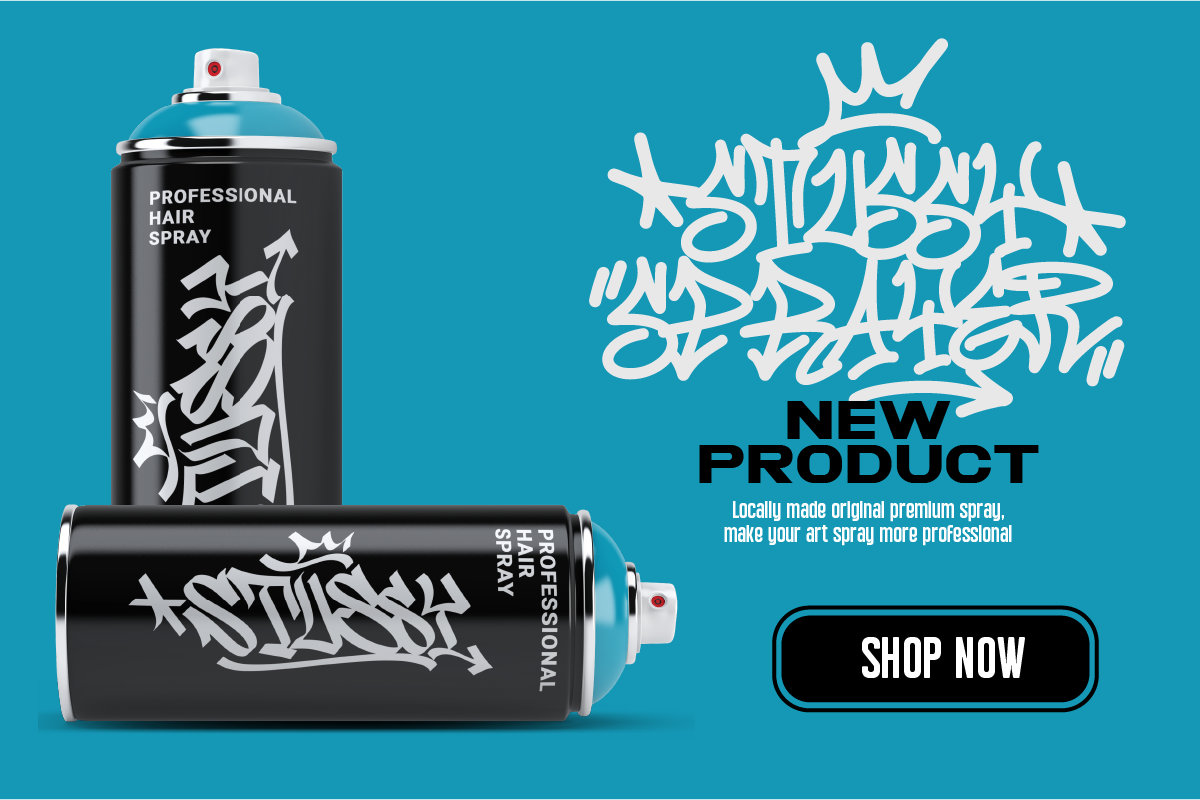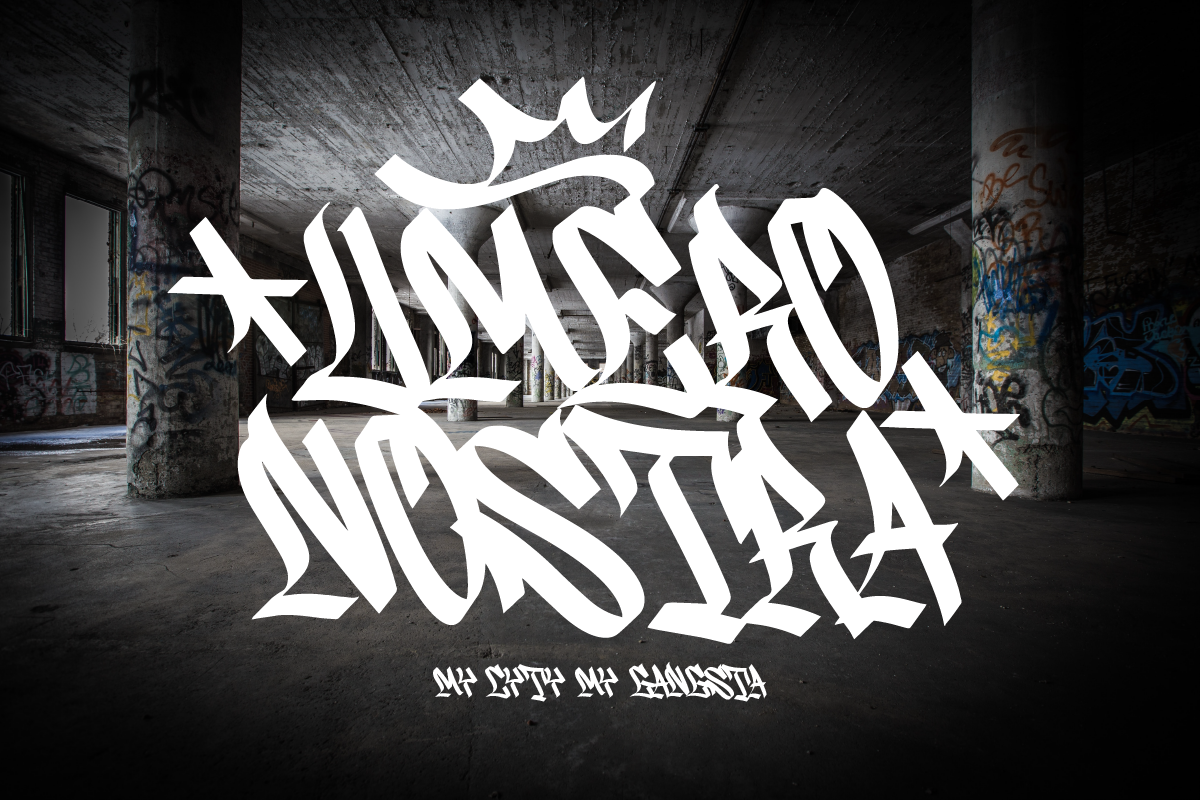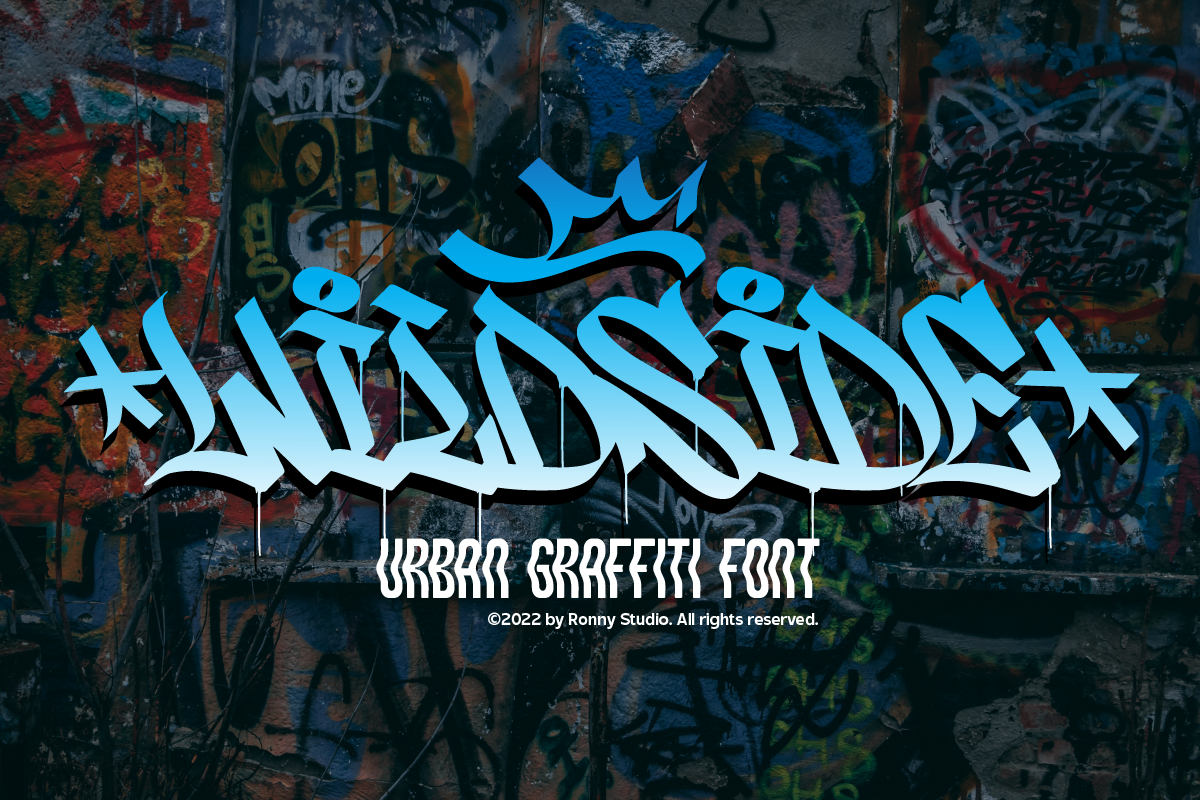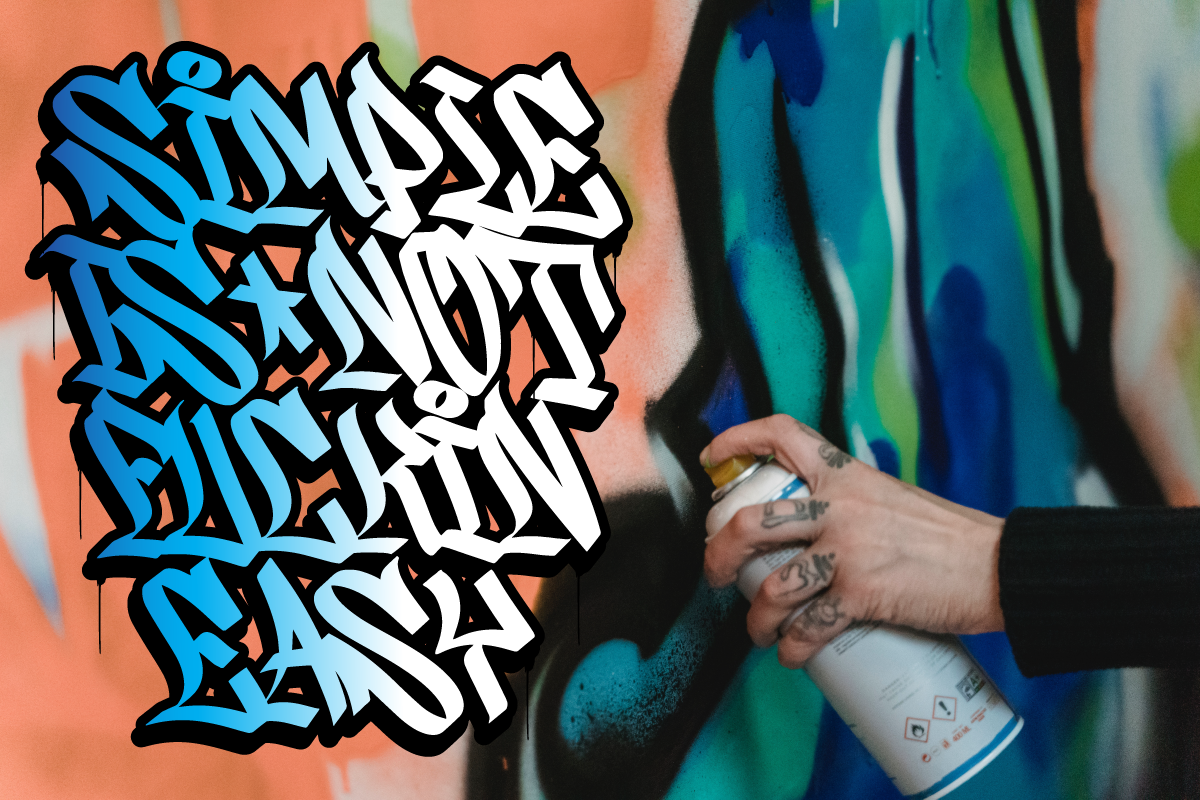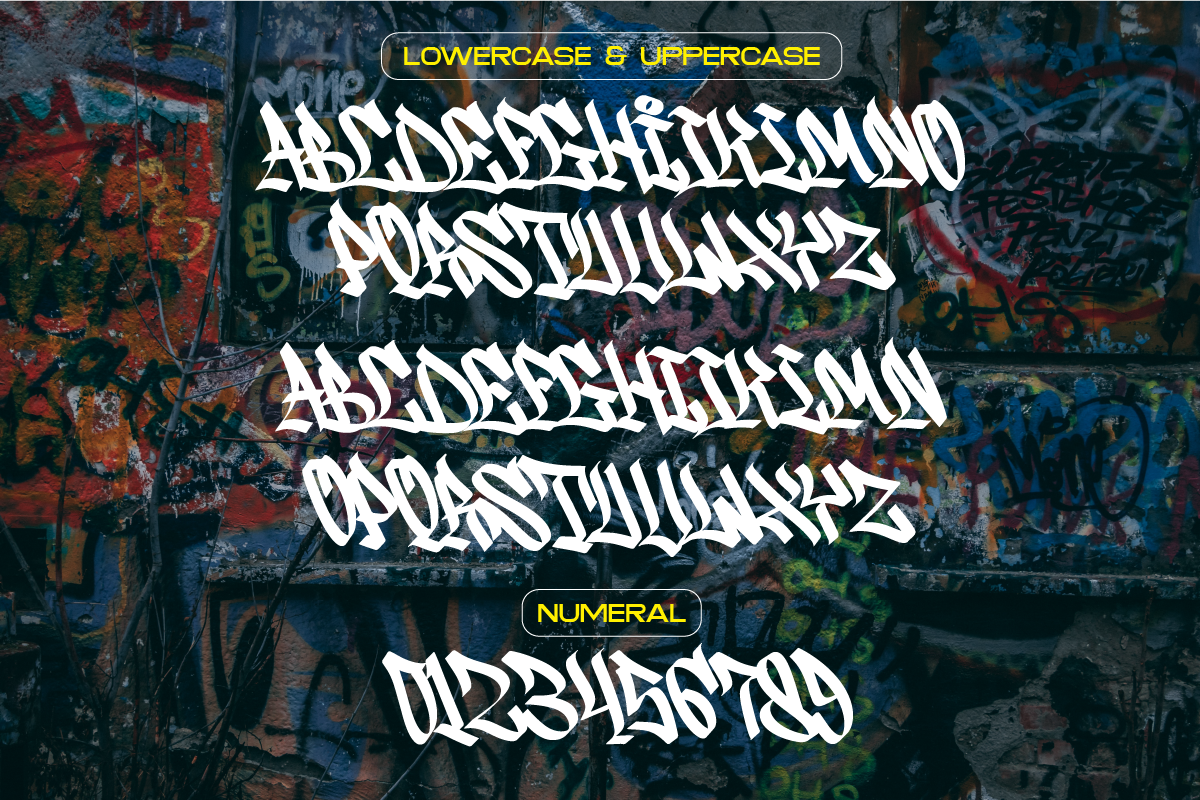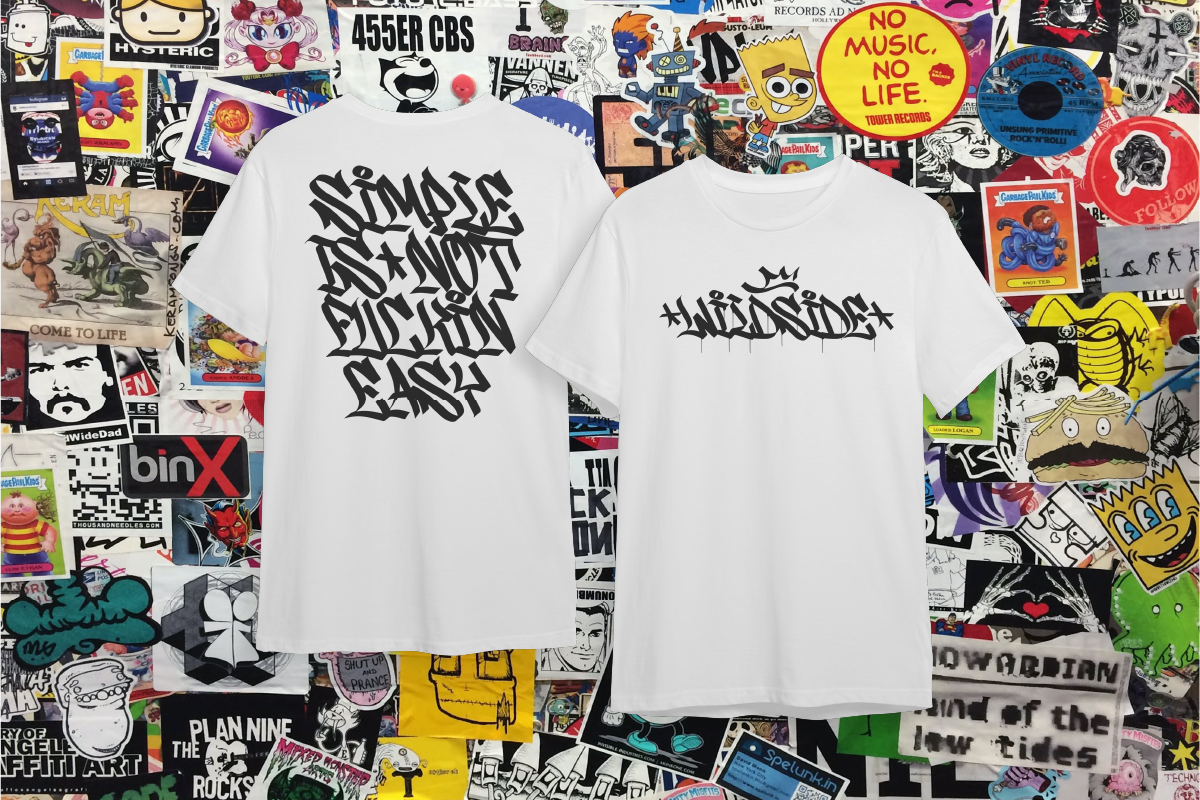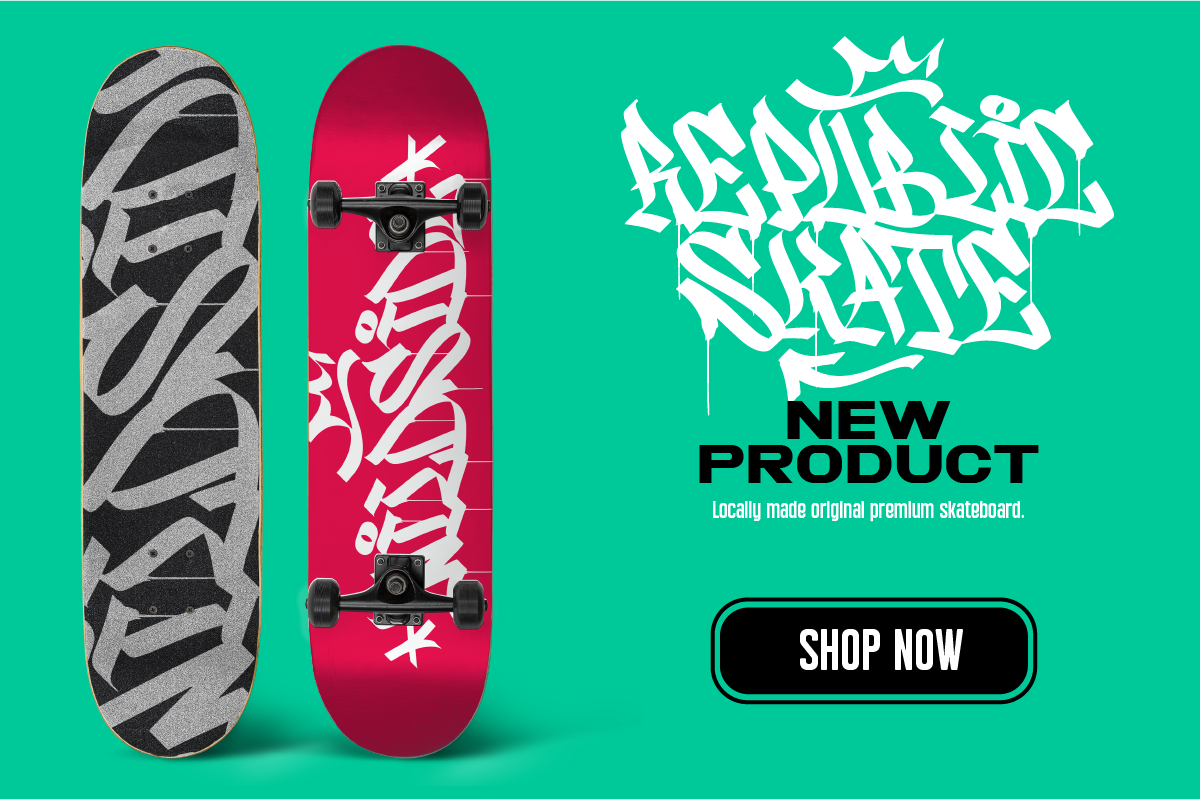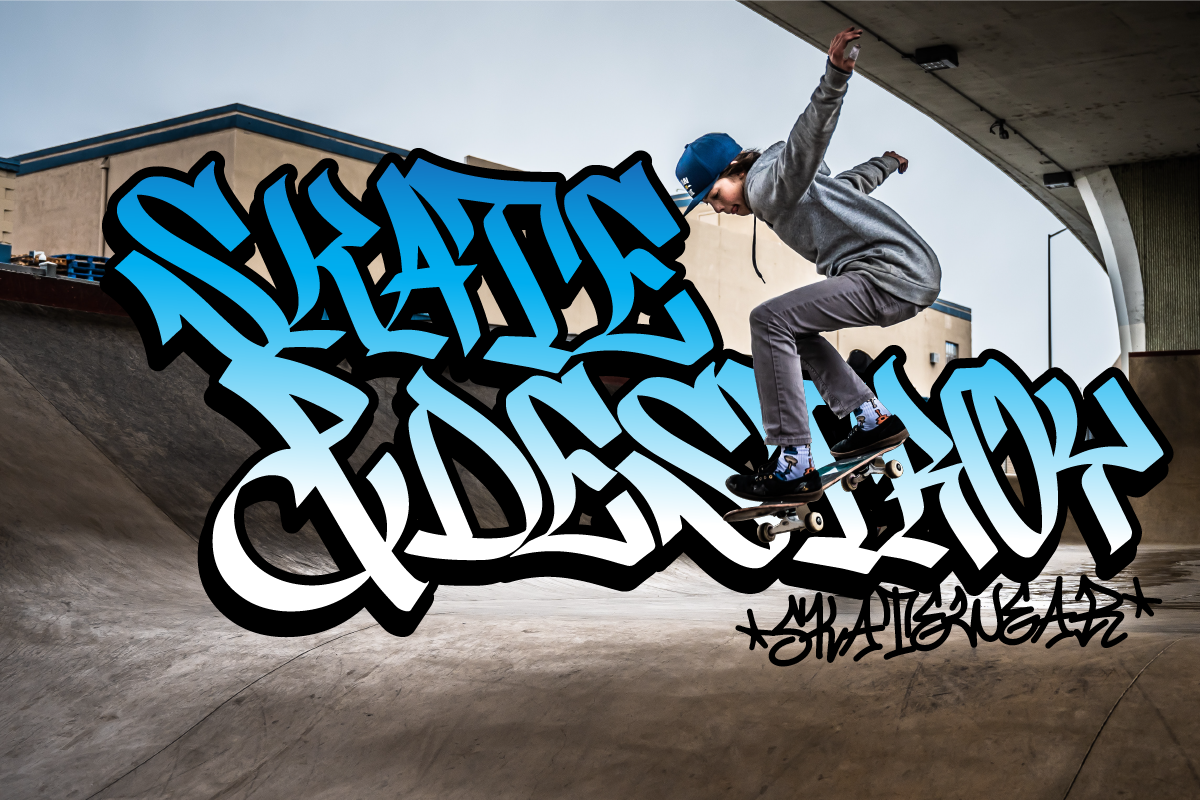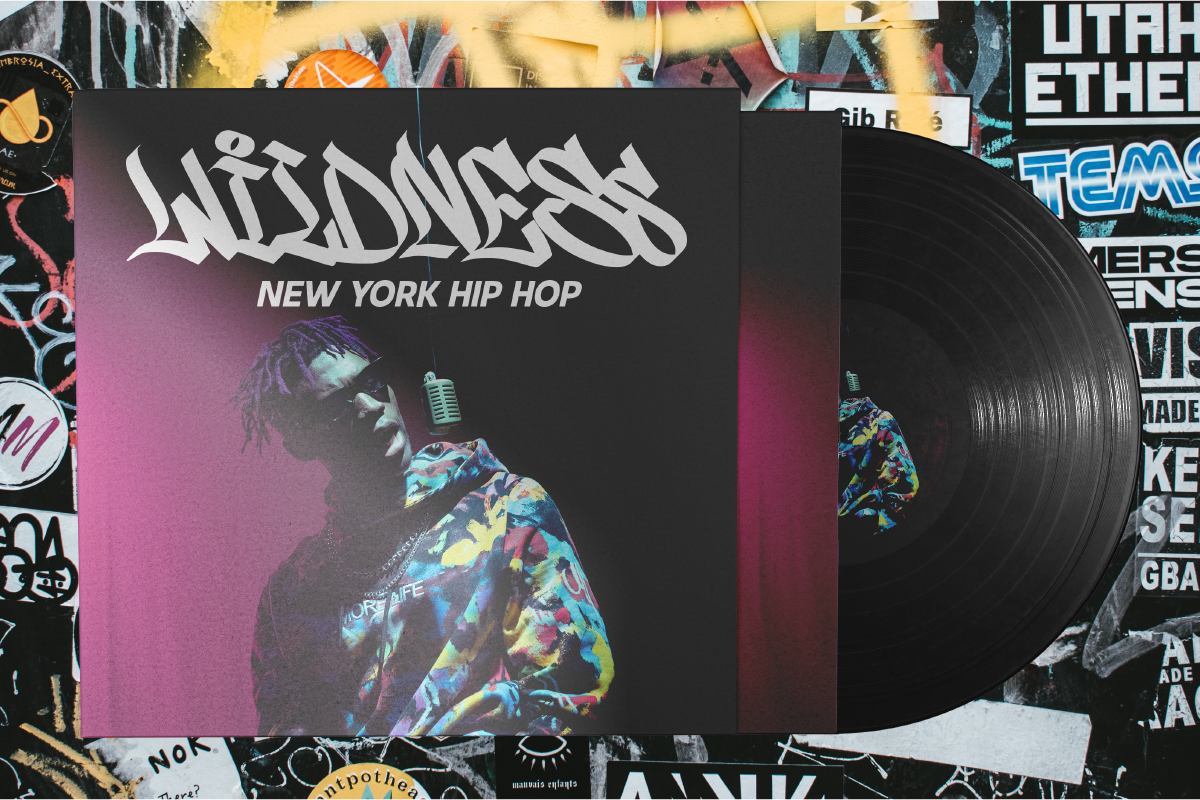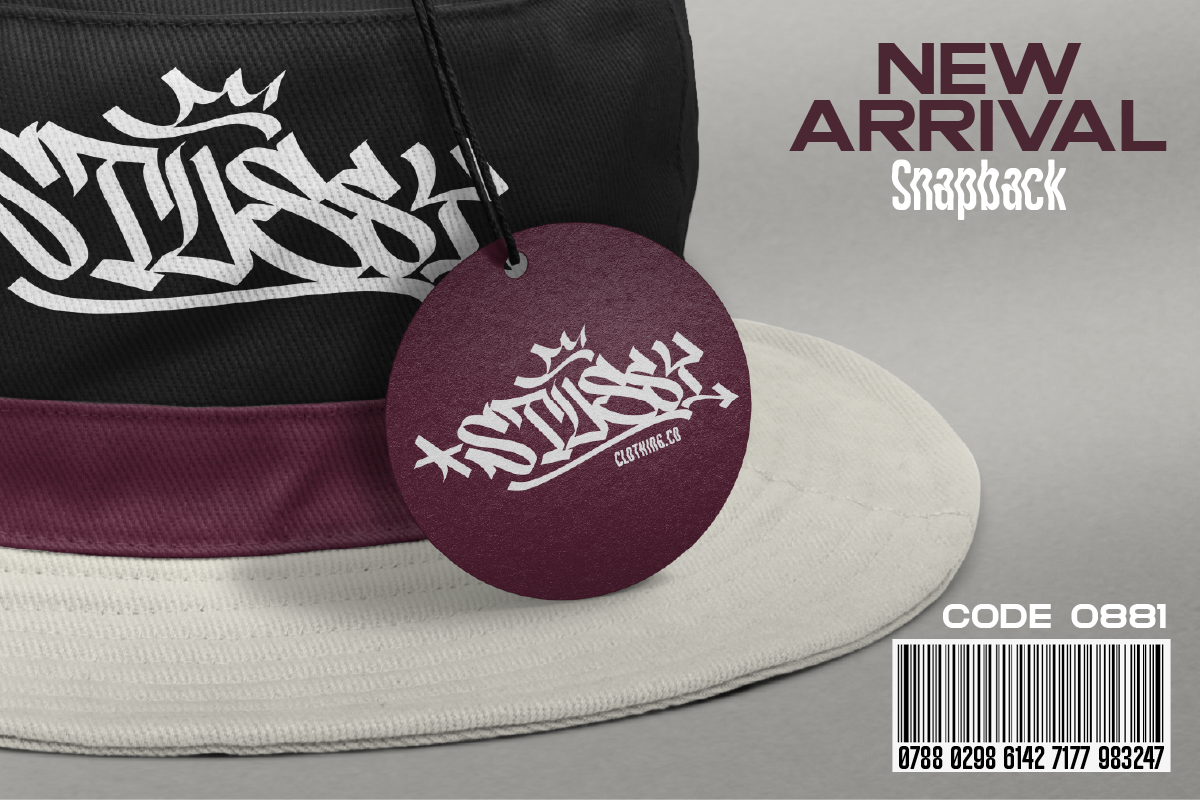
Wildside Urban Graffiti Font
Wildside Inspired by the realistic calligraphy marking style in many big cities. This style is bolder and easier to read, perfect for your "street art" design style. I incorporate real graffiti experience into computer fonts, I think it will be different to other fonts if you can feel it, because I draw graffiti, mark and throw up since I was in high school.
- All Caps
- Swash / Ornament